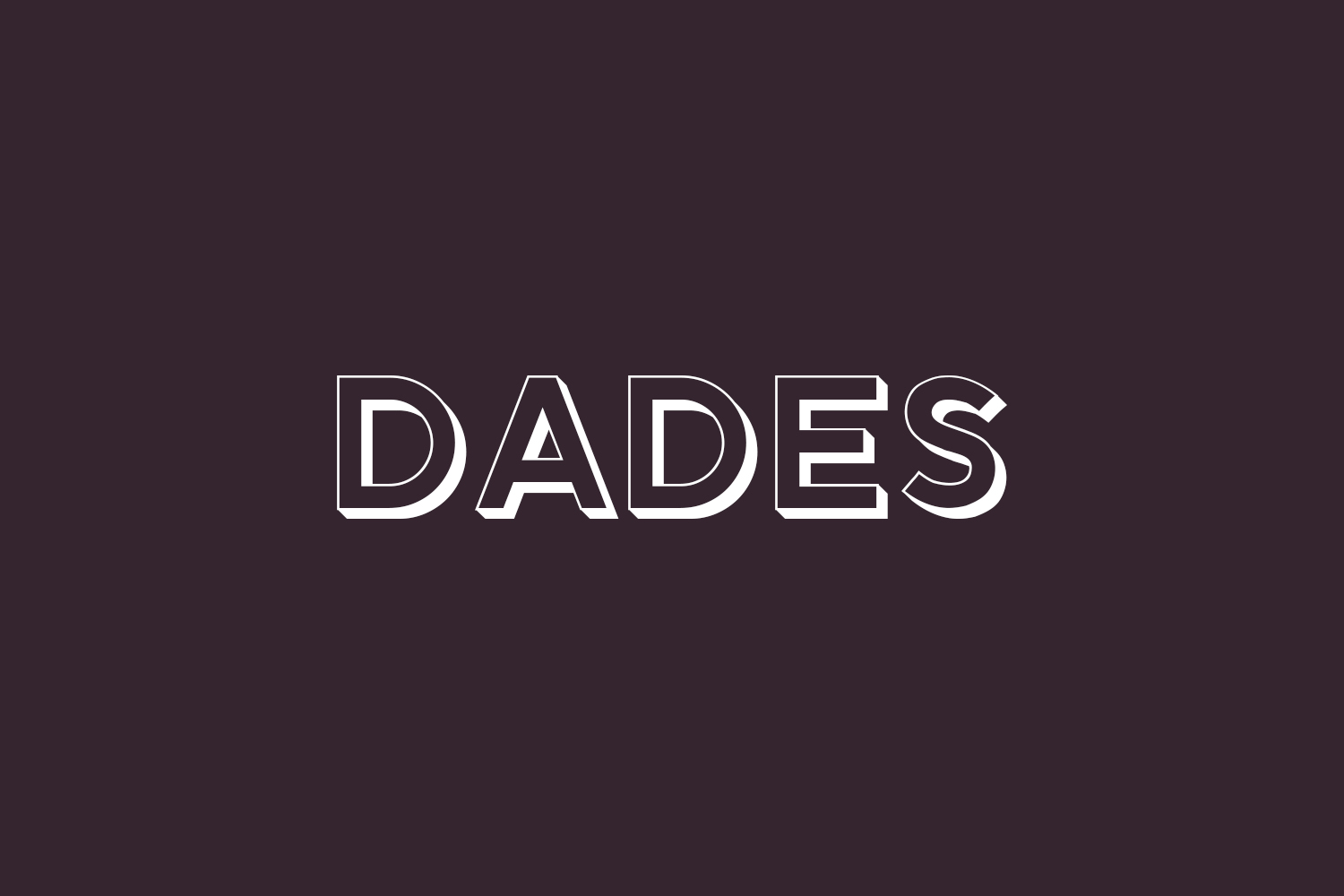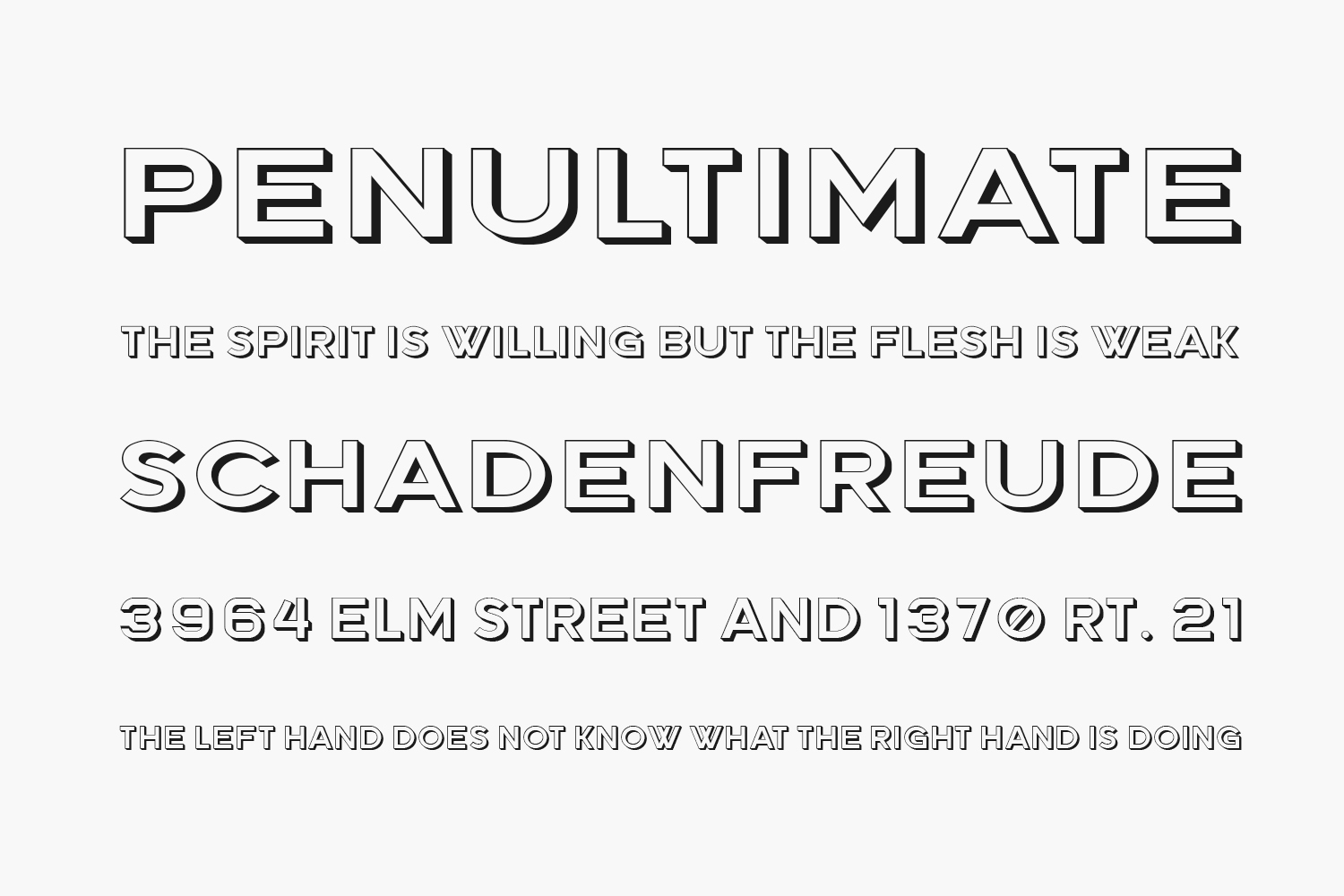
Dades Free Font is a beautiful and bold display font. It looks powerful and it will elevate each of your creations to the highest levels. Dades Free Font was designed by Vladimir Nikolic and is free for personal use only. Please purchase the full version for commercial use.
Designed by Vladimir Nikolic